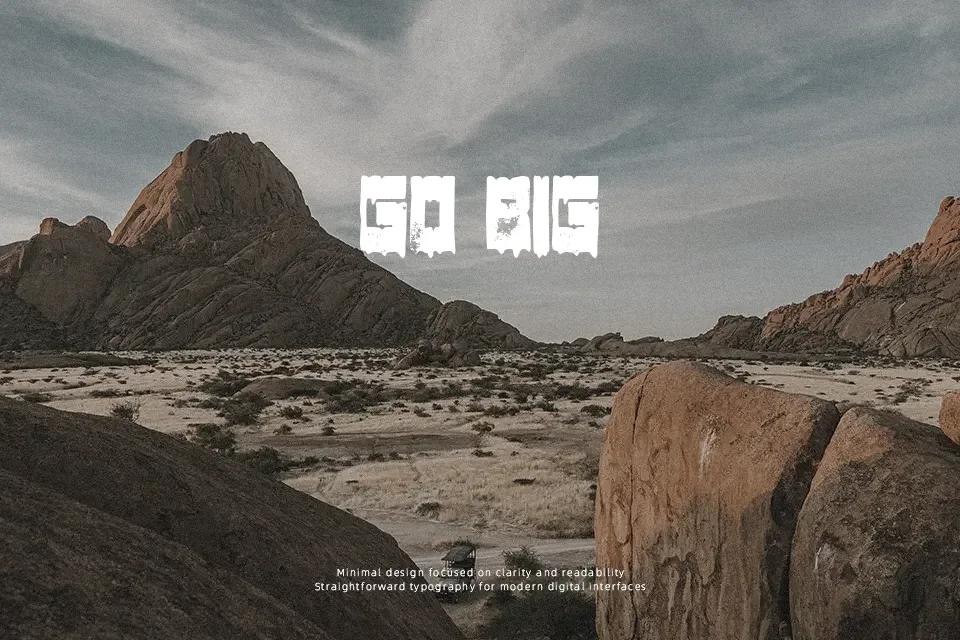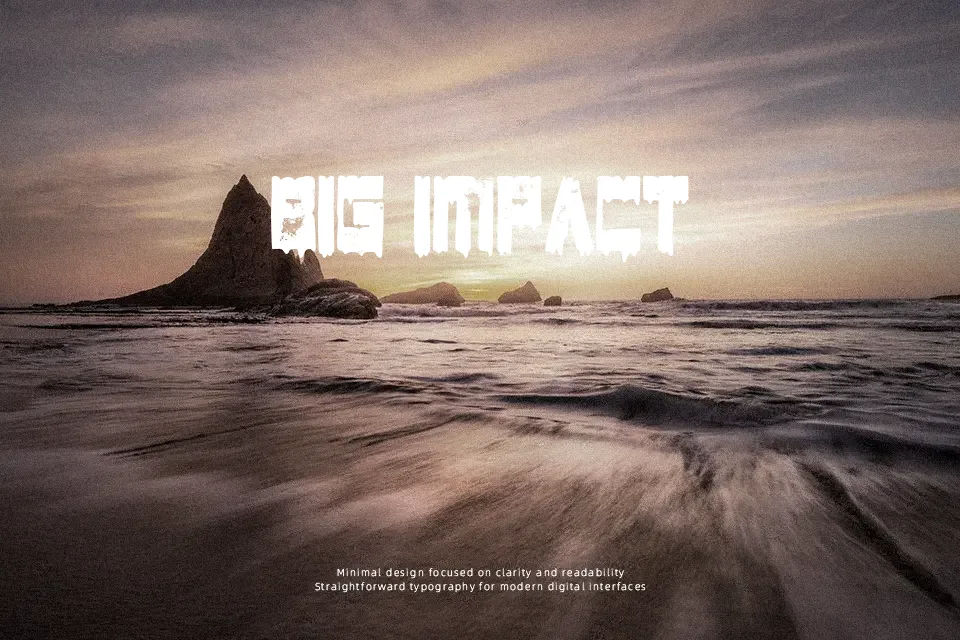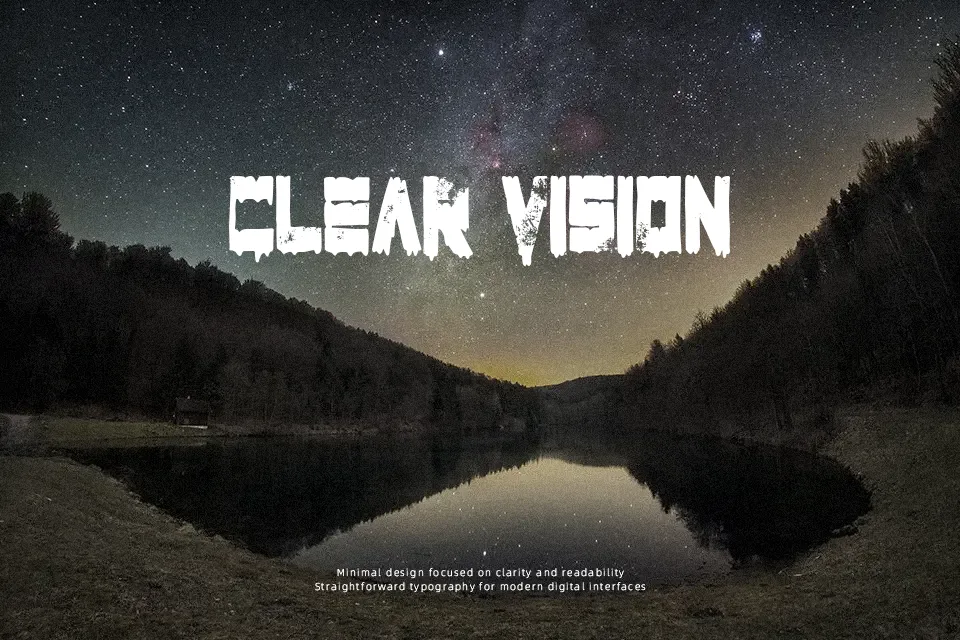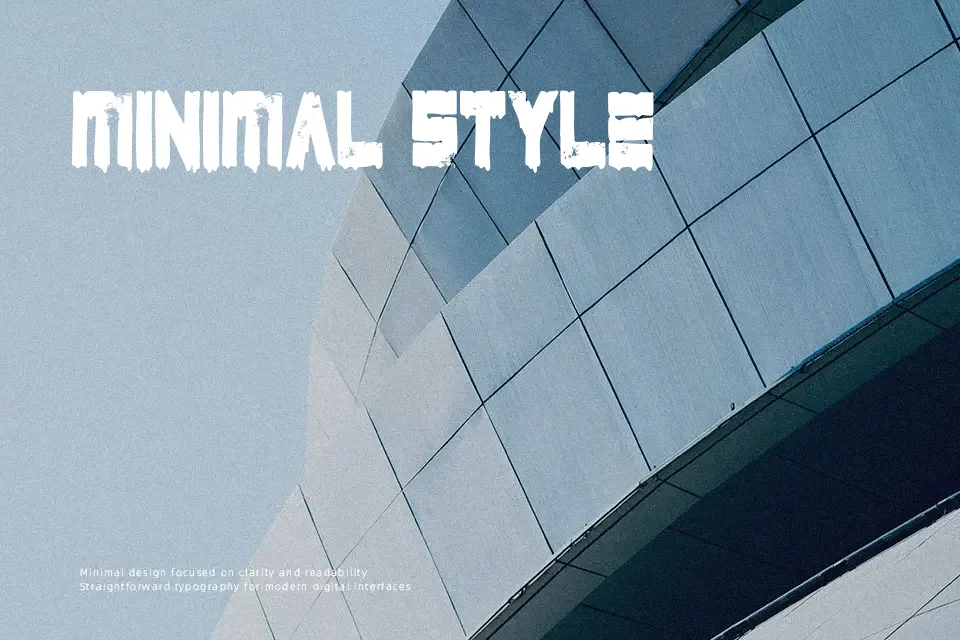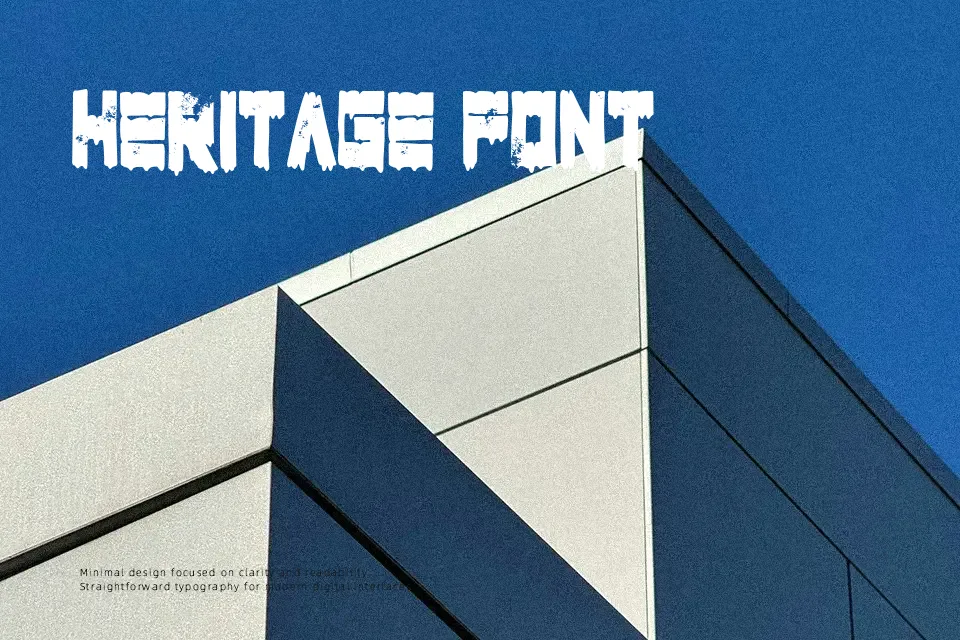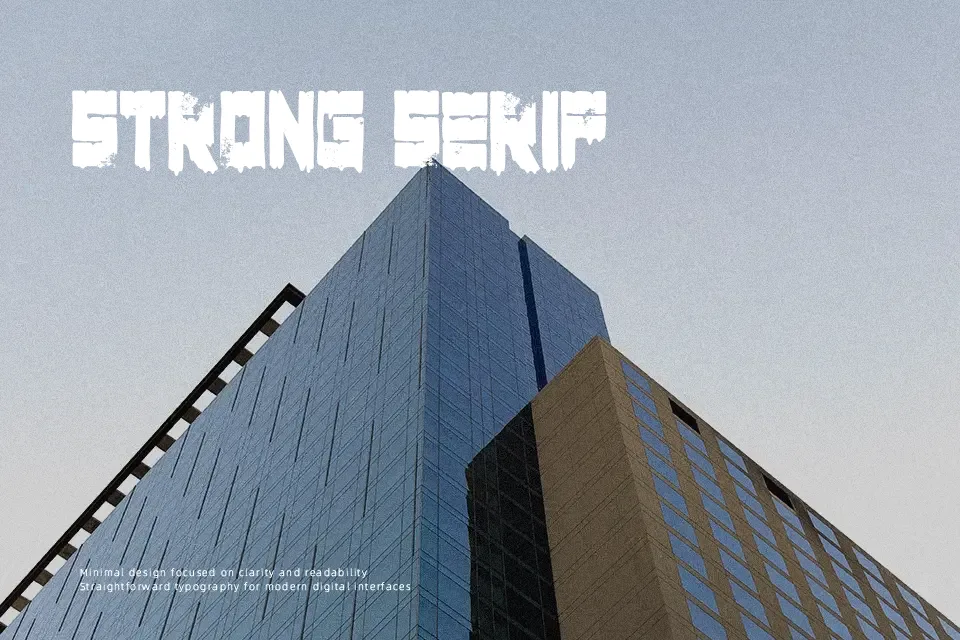
Artificial Intelligence Is Shit Font
The letterforms here are rough and deliberately broken — erosion bites into the strokes unevenly, leaving jagged edges and a texture that reads more like screen-printed graffiti than clean type. It belongs to Woodcutter’s distinctly Spanish vintage-meets-underground catalog, sitting somewhere between raw stencil and weathered signage. In practice, it works well for short, loud headline statements — protest posters, underground music flyers, or punk-adjacent merch graphics where personality matters more than legibility. Try setting it large and giving it room to breathe; at smaller sizes the eroded detail collapses and readability suffers fast. It does not suit any context requiring trust, polish, or professionalism — corporate use would be a misread of what this face is built for.
Best For:- Punk or underground music event posters
– Anti-establishment editorial headlines
– Zine covers and protest graphics
– Edgy social media statement visuals
Not Ideal For:- Long body text or multi-line paragraphs
– Corporate branding or business materials
– Small-size print or UI labels
– Any context requiring a clean or authoritative impression
Perfect for editorial, headline, and music, with a bold and display style.